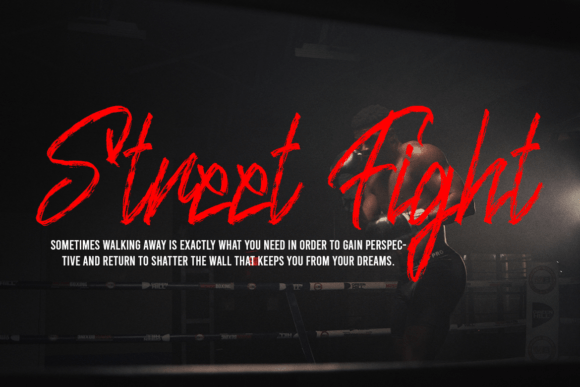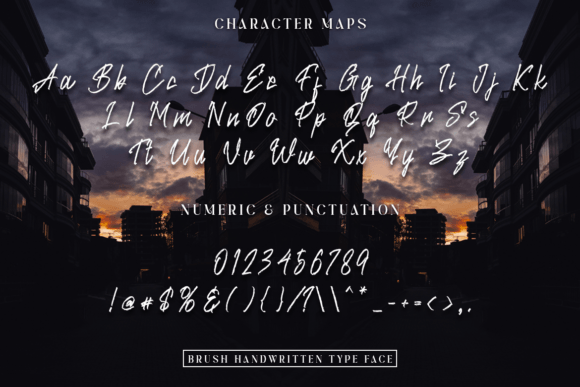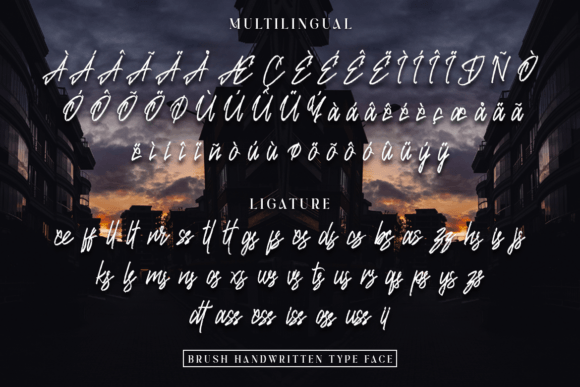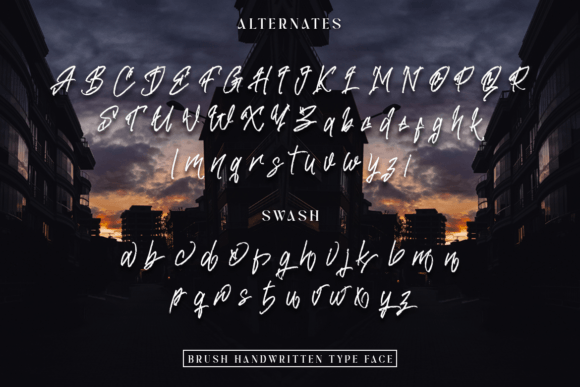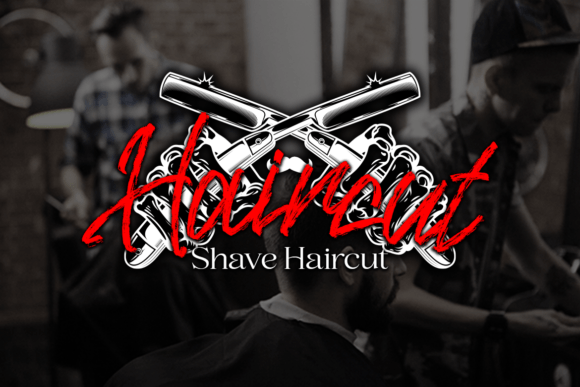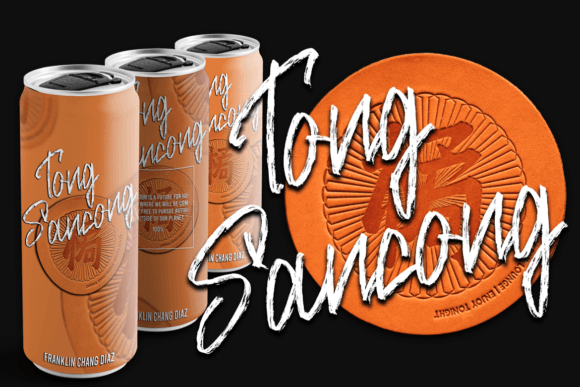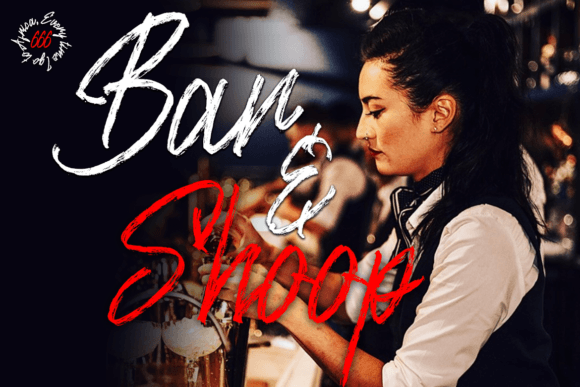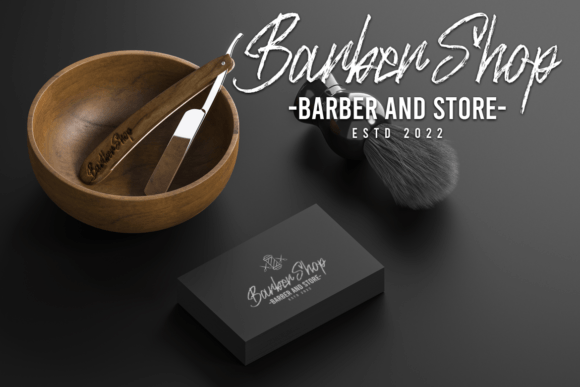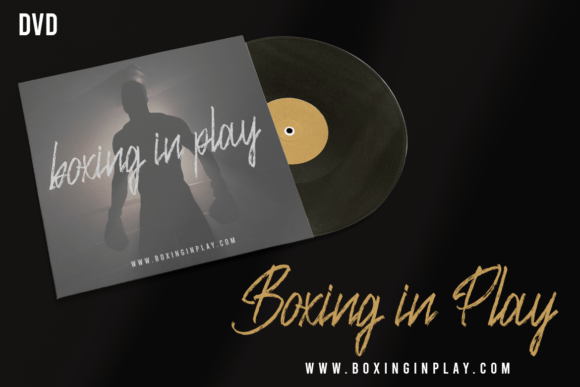
Bring the Noizz Font
About Bring the Noizz Font
**Bring The Noizz: A Unique and Beautiful Brush-Style Font**
Introducing **Bring The Noizz**, a font that combines uniqueness and beauty with its soft and lively brush-style letterforms. This font’s distinct character makes it incredibly tempting to use in design projects, adding a touch of elegance and fantastic visual appeal.
**Bring The Noizz** stands out with its brush-style script, exuding an artistic and lively feel. Its soft and flowing letterforms give your text a distinct and engaging appearance, making it an excellent choice for projects that demand an elegant and eye-catching design.
This font’s uniqueness and beauty make it suitable for a wide range of applications. Whether you’re working on branding, advertisements, posters, invitations, or any other creative endeavor, **Bring The Noizz** elevates your designs with its fantastic and captivating style.
In branding and advertising, this font injects a burst of personality and artistic flair, helping your message or product stand out with elegance and uniqueness.
For print materials like posters and invitations, **Bring The Noizz** adds a touch of sophistication and visual interest, making your designs truly remarkable.
In conclusion, **Bring The Noizz** is more than just a font; it’s a design asset that brings uniqueness and beauty to your creative projects. Whether you’re designing for branding, events, or various other contexts, choose **Bring The Noizz** to infuse your work with its elegant and captivating charm. Embrace its artistic appeal, and let your creativity flourish with a touch of fantastic style.